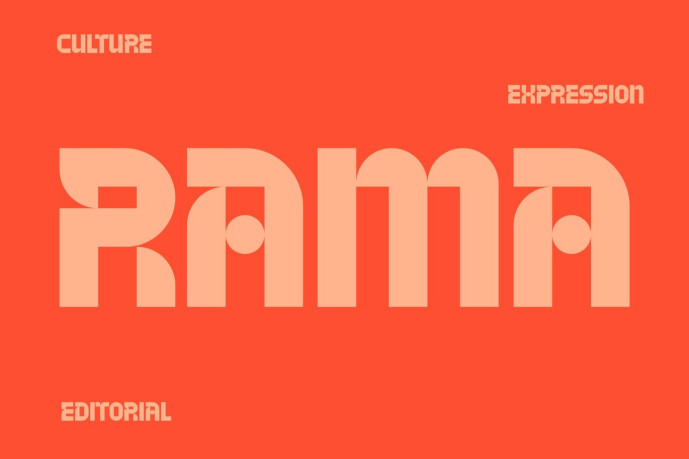
Rama – Modern Branding Display Font
Rama – Modern Branding Display Font is a geometric display typeface crafted for bold visual identities and contemporary creative projects. Its squared letterforms, low-contrast construction, and structured proportions create a confident, futuristic appearance while maintaining excellent readability in large-format typography. Designed to make headlines feel clean, expressive, and memorable, Rama helps brands communicate with clarity and impact.
Built for modern designers, Rama works naturally across branding systems, editorial layouts, posters, packaging, social media graphics, creative campaigns, and digital interfaces. Its architectural character and balanced spacing make it an excellent choice for projects that demand a strong visual presence without unnecessary complexity.
Whether you’re creating a startup identity, promotional campaign, exhibition poster, editorial headline, product packaging, or social media content, Rama delivers a bold and consistent voice that captures attention immediately. The geometric structure adds confidence to every composition, allowing designers to create distinctive layouts that feel modern, organized, and visually engaging across both print and digital media.
Key Features : Strong Geometric Personality
Bold geometric construction with clean squared forms
Modern visual style for impactful typography
Clear structure for highly legible display text
Designed for Creative Branding
Ideal for branding and visual identity systems
Perfect for posters, editorial headlines, magazines, and campaigns
Excellent for packaging, advertising, and social media graphics
Suitable for website heroes, app UI headlines, and presentation titles
Multilingual Support
Supports 67 languages
Extensive accented characters for international design projects
Efficient Creative Workflow
Easy to pair with minimalist body text
Strong readability at large sizes
Consistent spacing for clean, professional layouts